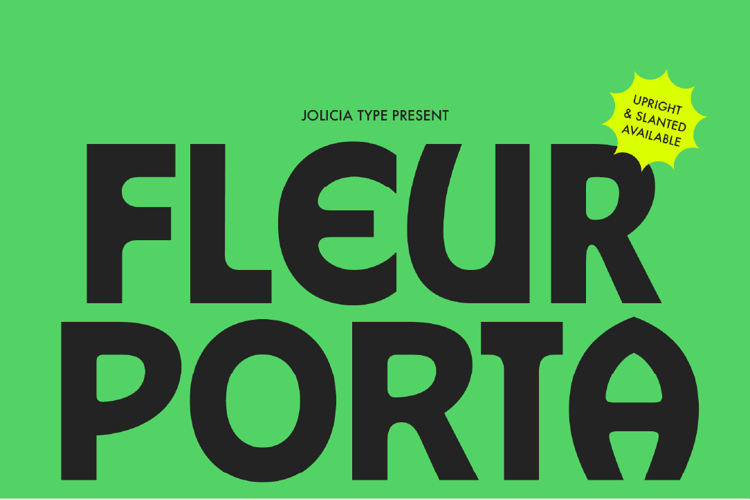
Fleur Porta Font
Fleur Porta is a distinctive display sans serif typeface that
blends modern clarity with subtle Art Deco elegance. Featuring
clean geometric forms and refined decorative details, it offers a
perfect balance of simplicity and sophistication. With Upright
and Slanted styles, Fleur Porta is ideal for headlines, branding,
posters, and editorial design, delivering a bold, elegant, and
timeless visual impact.